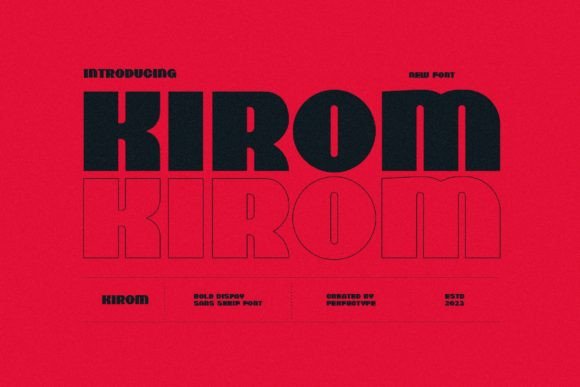
Introducing Kirom Font, the epitome of sophistication and style for your company profile! Crafted by the talented creators at Perfectype, this sans serif font is set to revolutionize your design projects with its captivating appeal.
Kirom Font boasts a unique blend of inspiration from various sources, resulting in a perfectly balanced and symmetrical rhythm. Its meticulously adjusted proportions, subtle contours, and delicate contrasts make every glyph a work of art.
Whether you're designing brochures, videos, or advertising branding, Kirom Font's versatility knows no bounds. Its attractive aesthetic seamlessly integrates with any graphic design purpose, ensuring a remarkable impact on your audience.
Elevate your brand's image with Kirom Font's elegance and minimalism. Its sleek and timeless appearance adds a touch of sophistication to your company profile, setting you apart from the competition.
Logos designed with Kirom Font exude professionalism and credibility, leaving a lasting impression on your customers. Your brand identity will be instantly recognizable, making it easier for potential clients to connect with your business.
Magazines and layout designs come to life with the captivating allure of Kirom Font. Its clean lines and refined structure create a visually stunning experience, captivating readers and keeping them engaged from cover to cover.
Posters and post templates become true works of art with Kirom Font's artistic finesse. Whether you're promoting an event or sharing important information, this font will grab attention and leave a lasting impact on your target audience.
Take your gaming experience to new heights with Kirom Font's eye-catching appeal. From captivating titles to immersive in-game graphics, this font will enhance the visual storytelling of your gaming masterpiece.
In a world where first impressions matter, Kirom Font ensures that your designs stand out from the crowd. Its captivating and versatile nature makes it a must-have tool for any designer, regardless of their level of expertise.